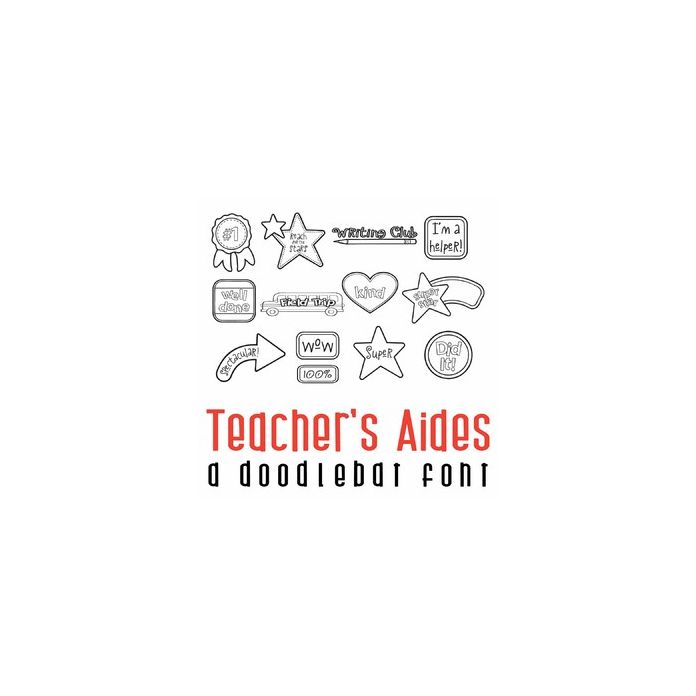
This fun doodlebat font features 92 fun teacher helps. Perfect for assignments, classrooms, cards, crafts, gifts, decor, scrapbook pages, planner stickers and more! Glyphs are A-Z upper and lowercase, 0-8 and !@#$%&*() for 92 glyphs!